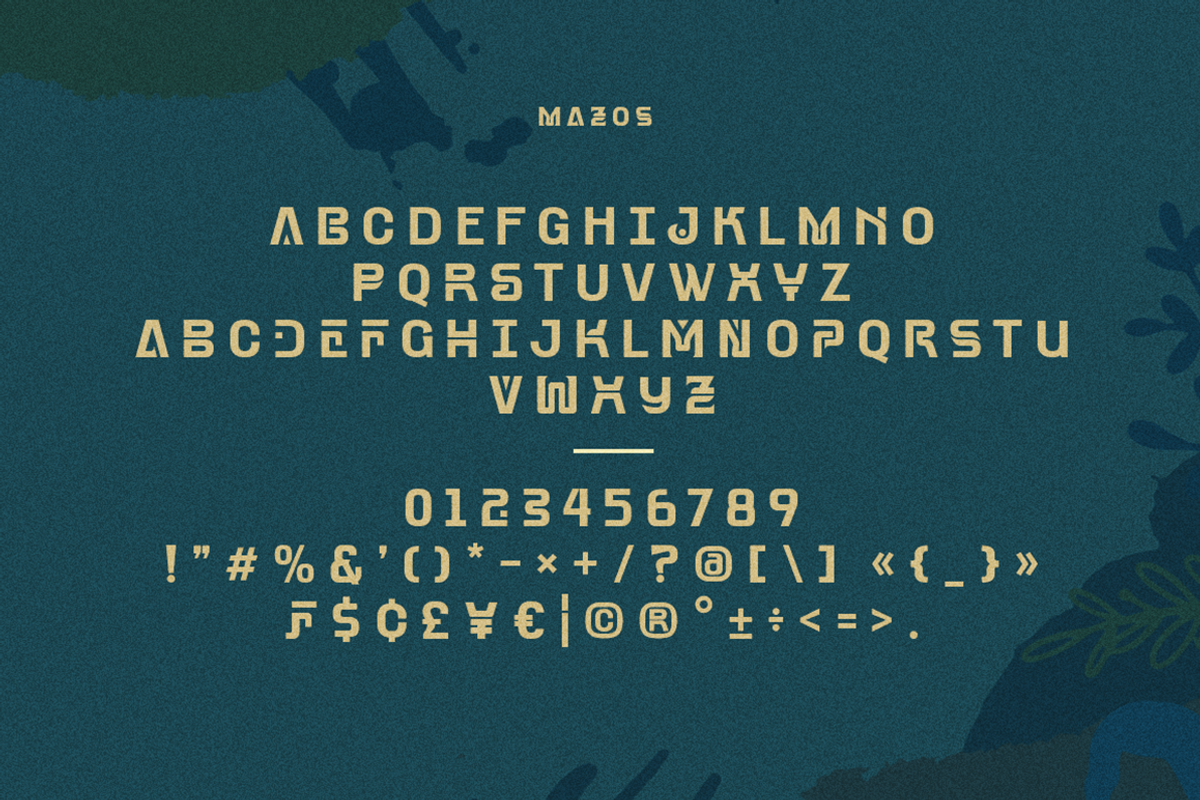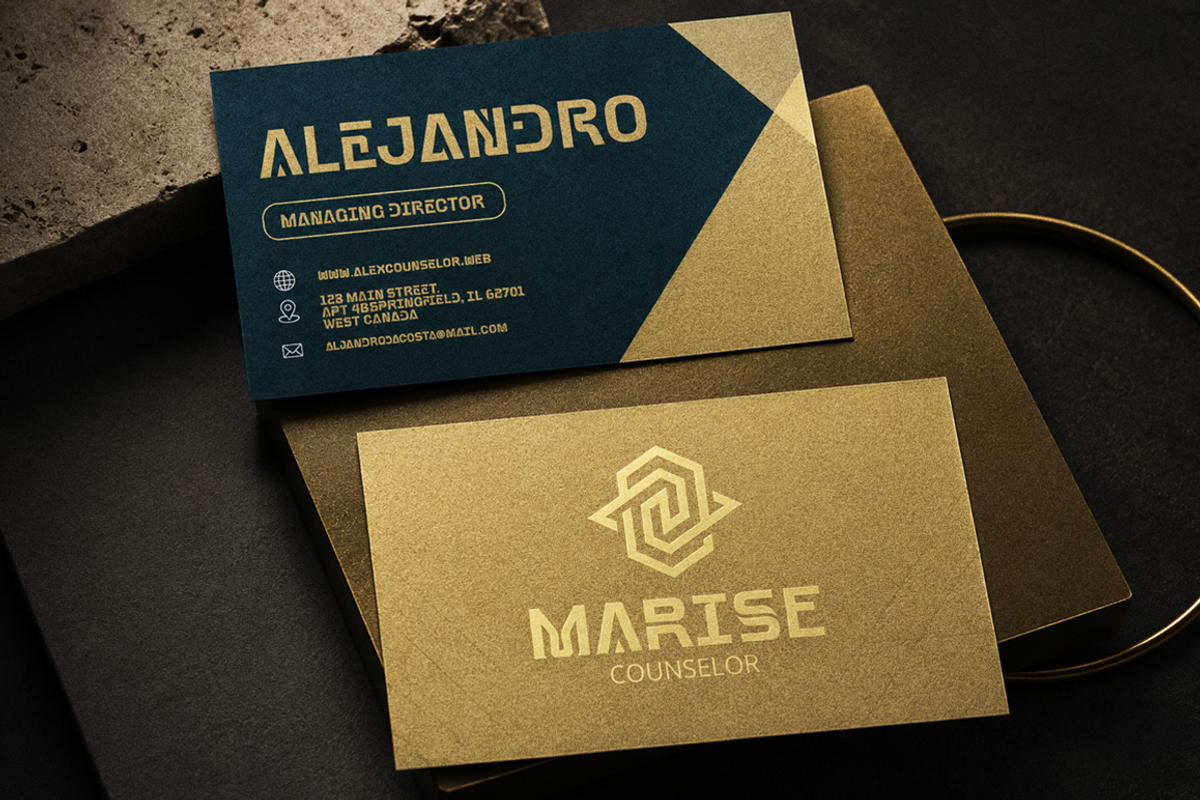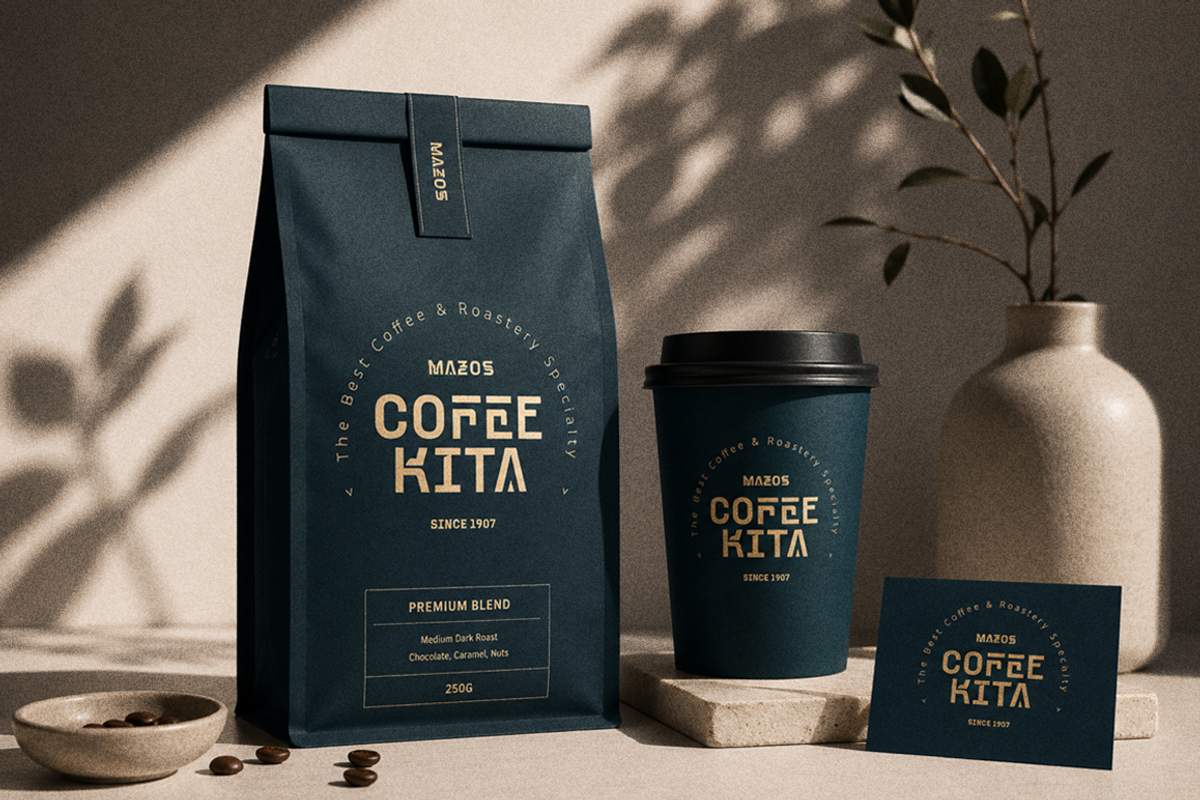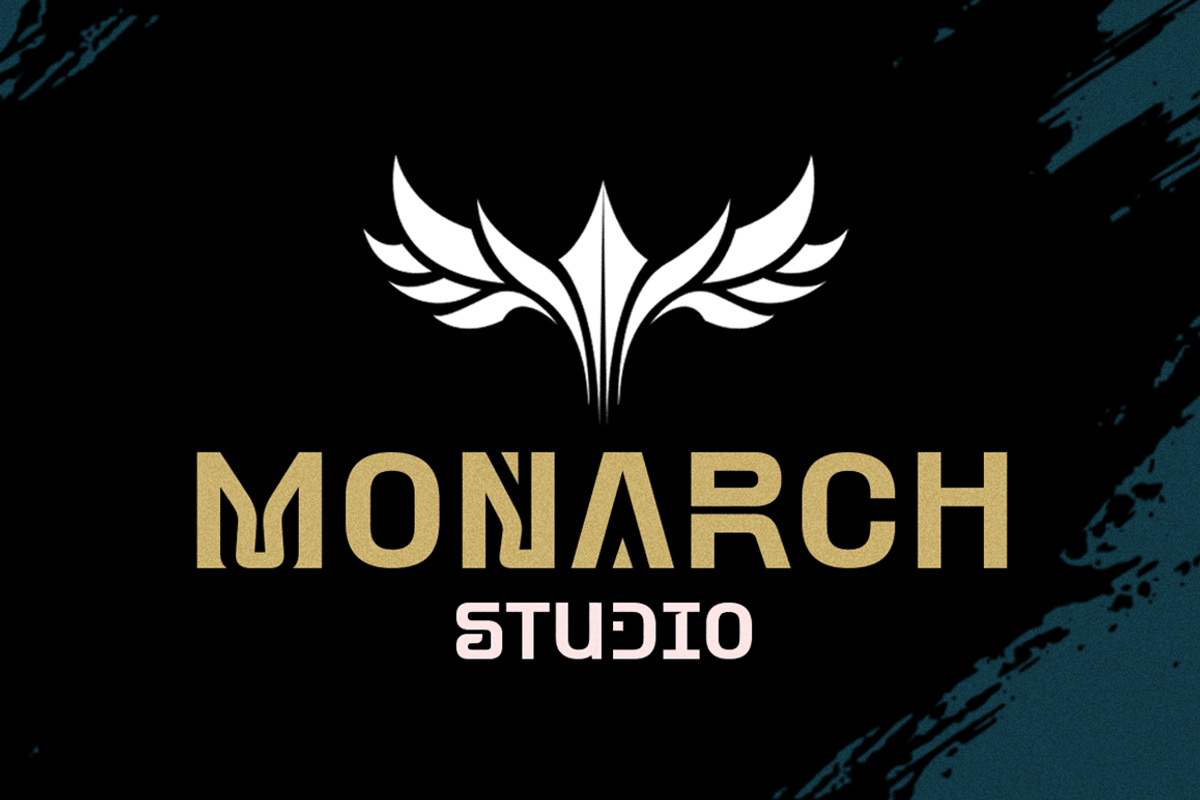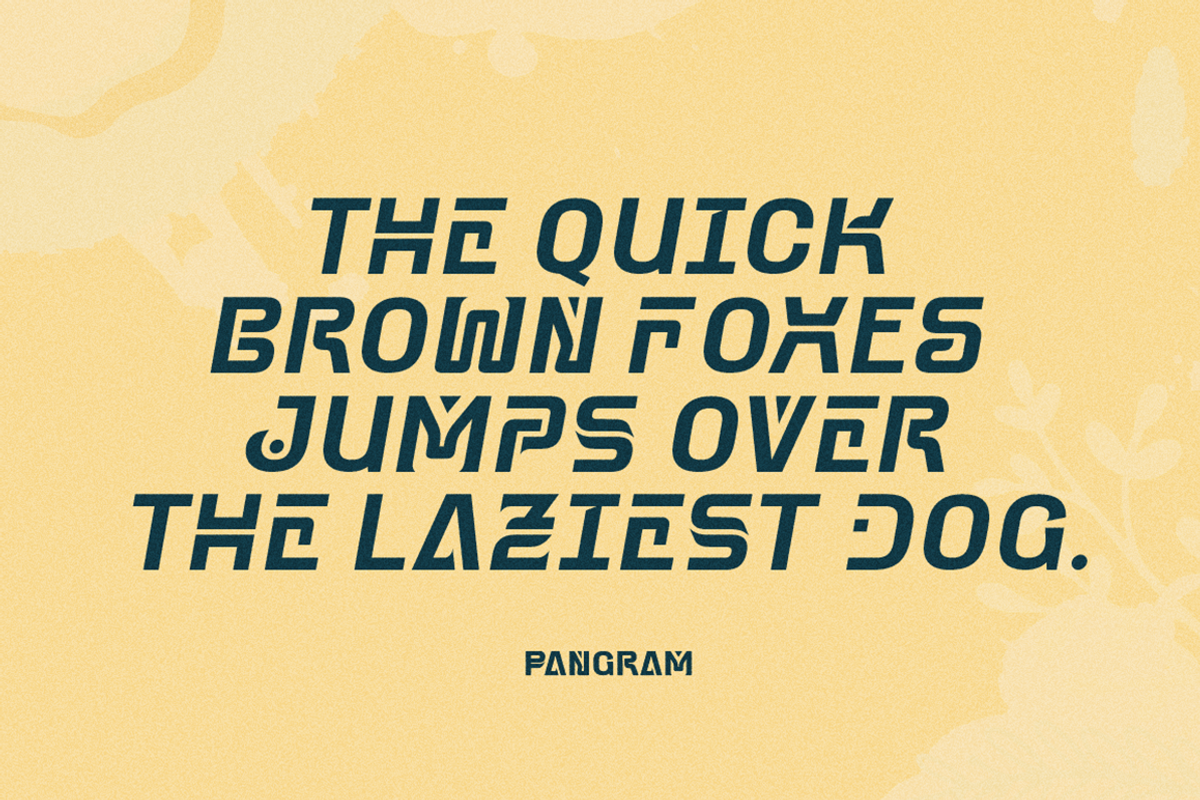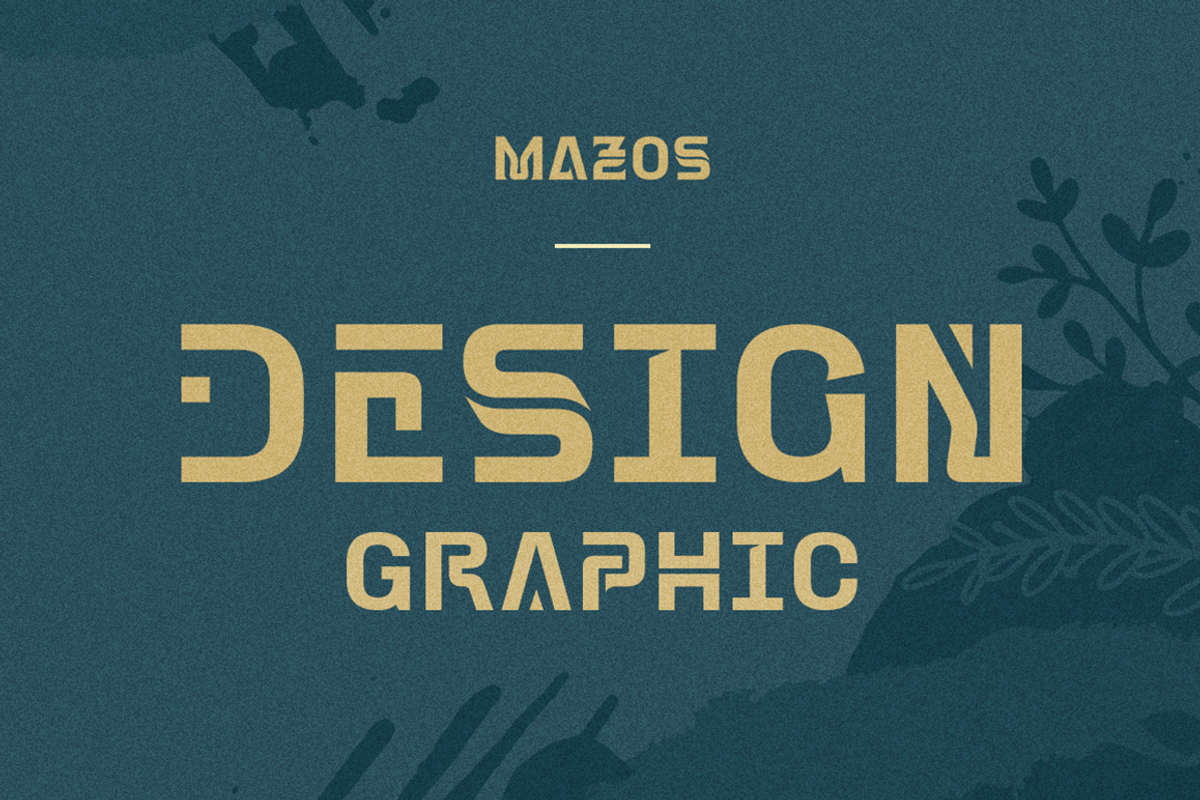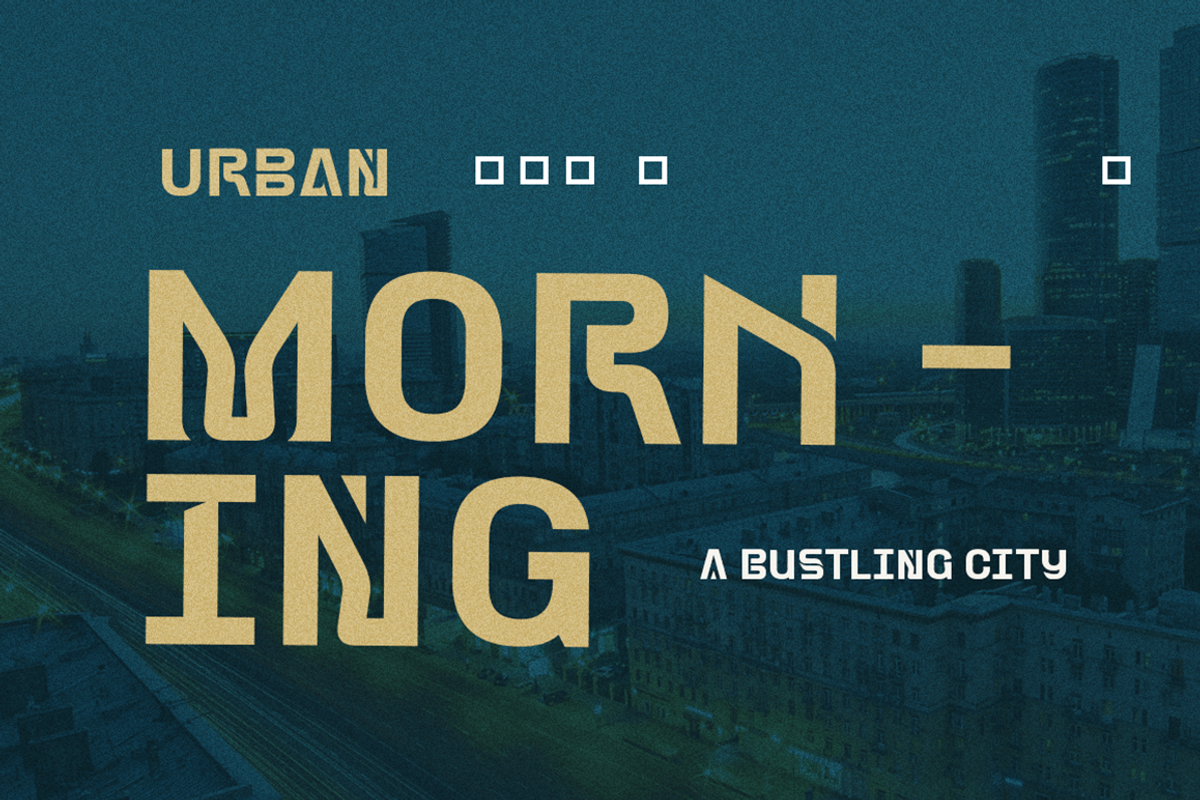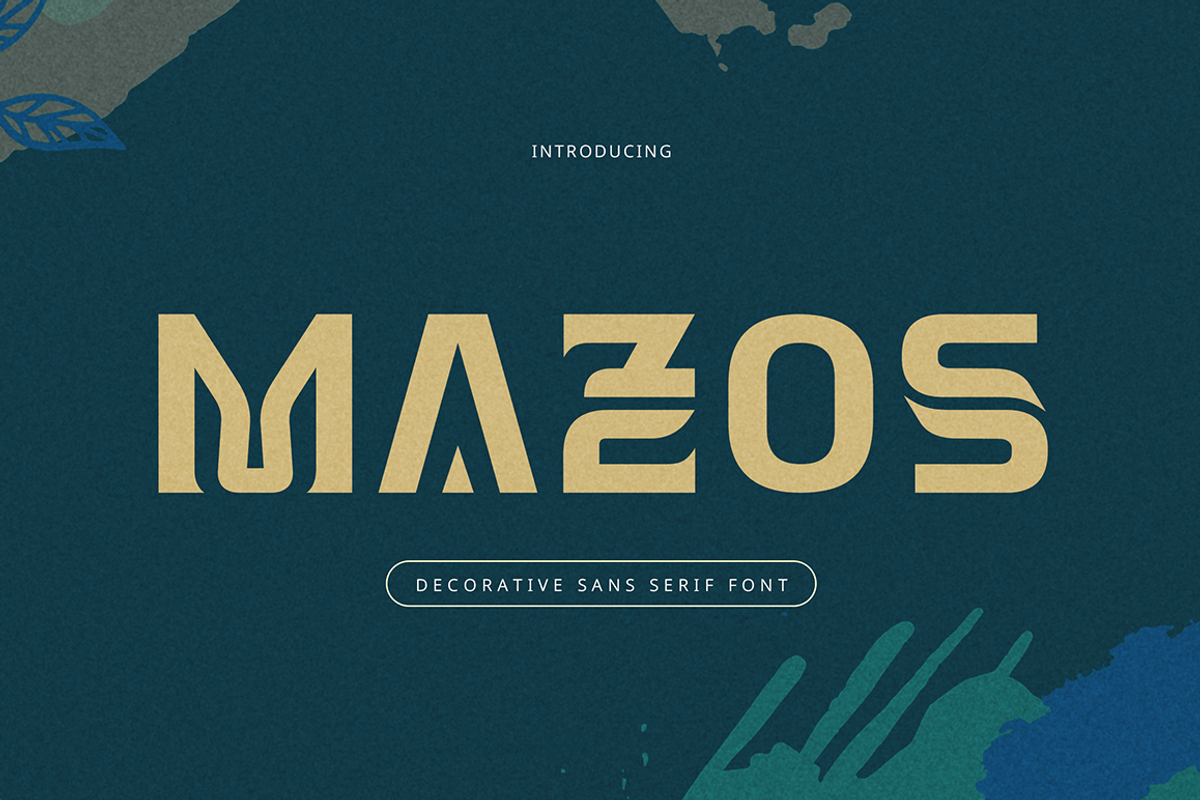
Mazos - Decorative Sans Serif Font
Mazos is a Regular decorative sans serif font crafted to make a lasting impression. Featuring striking all-caps characters and a distinctive modern structure, it combines futuristic elegance with creative versatility. Every letter is designed with unique details that give the typeface a powerful personality while maintaining excellent readability. Perfect for branding, logos, packaging, posters, headlines, gaming projects, and contemporary editorial designs, Mazos brings a confident and sophisticated presence to any visual composition. Its clean geometric foundation is enhanced by stylish decorative elements, creating a look that feels both innovative and timeless.
Basic Latin Glyphs
Decorative Sans Serif Font
Ligatures & Alternates
All Caps Letters
Numeral and Punctuation
Currencies